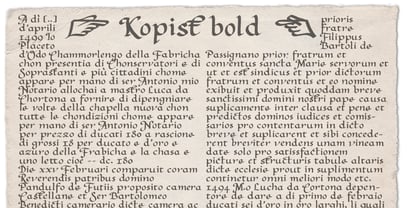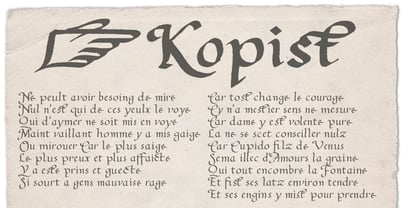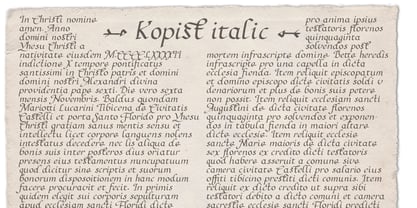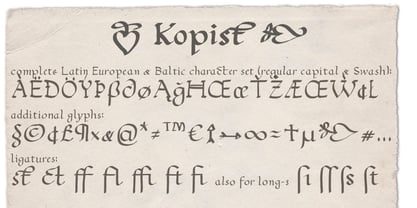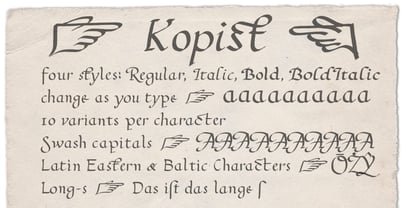
Kopist
The Kopist Font Family was designed by Werner Eschmann and published by Fontroll. Kopist contains 4 styles and family package options. More about this family
Kopists were the poor guys in the 16th century who copied important texts like the Bible or important state documents and certificates over and over again. At that time a widespread handwriting was the Humanist Cursive which originated from Italy. The scribes of the time were dissatisfied by the "slow" Humanist minuscule and tended towards using the Humanist Cursive (from Latin currere „run, hurry").
We studies documents of the time and came out with 4 fonts which slightly change between 10 variants for each of the 376 characters. The fonts comprise of Regular, Italic, Bold and Bold Italic versions. Each character of the more than 5100 glyphs per font was hand drawn (no simple slanting of characters). The fonts have Latin Eastern European and Baltic character sets (sorry, no Cyrillic this time), some ligatures, special word end characters, and swash capitals (not too fancy, but more usable in text copy).
All in all we believe Kopist gives you a nice toolset for creating authentic medieval and Renaissance-style documents without the hassle of writing them by hand.